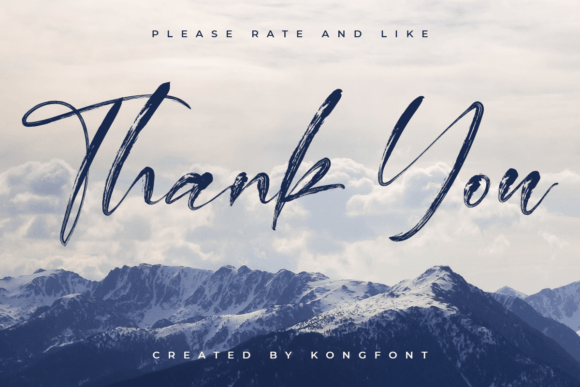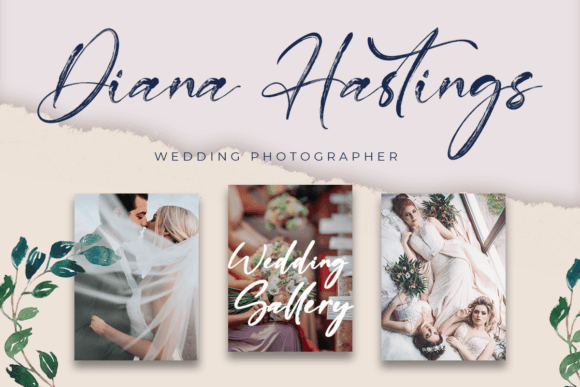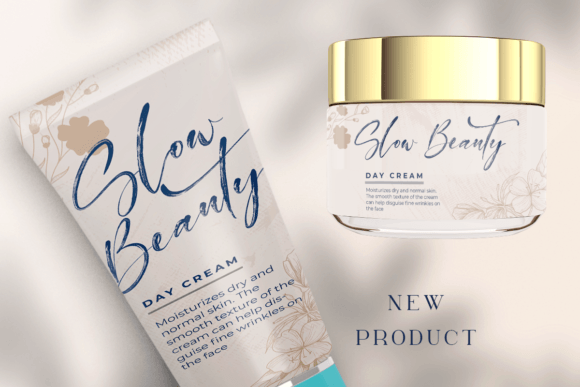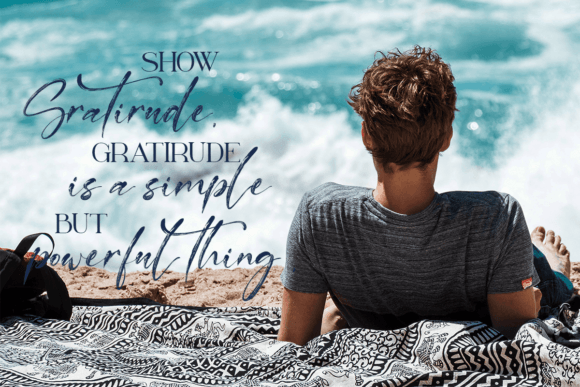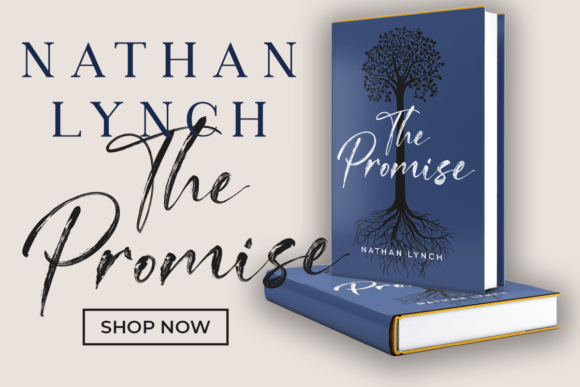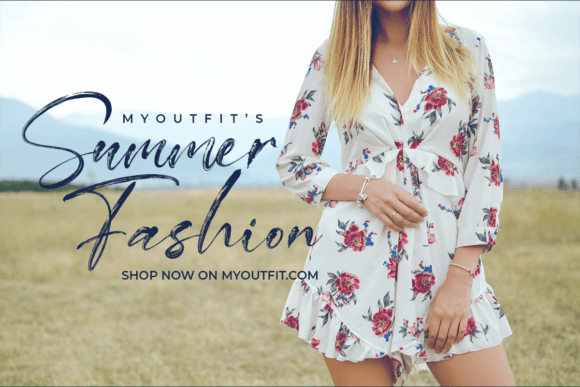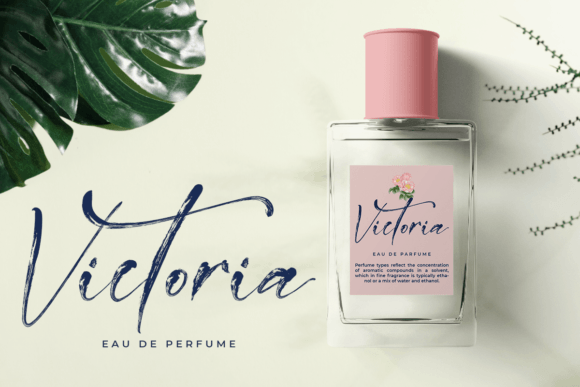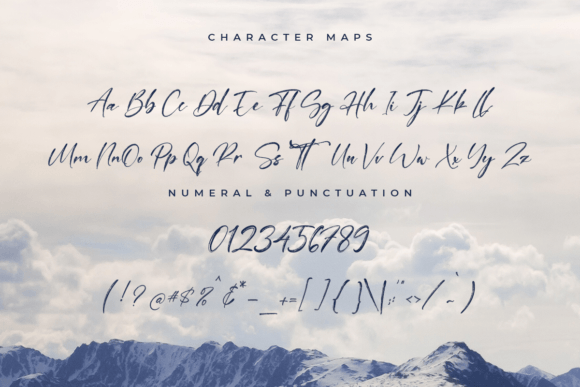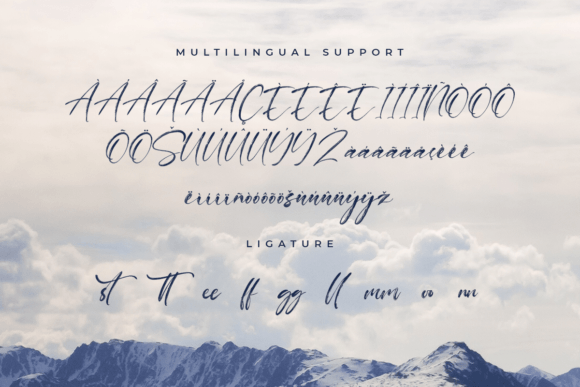
Geoffrey Font
About Geoffrey Font
“Geoffrey Brush Font” is a distinctive and beautiful typeface that stands out with its unique brush-style letterforms. The soft and lively feel of this brush font adds a tempting quality, making it an excellent choice for various design projects. With its elegant look, Geoffrey Brush Font has the potential to enhance the visual appeal of your designs and make them look fantastic.
The brush-style letterforms of Geoffrey Brush Font contribute to its uniqueness and versatility. The soft strokes and lively character give it a dynamic and organic appearance, making it suitable for a range of design contexts. Whether you’re working on branding, posters, invitations, or other creative projects, Geoffrey Brush Font has the capacity to bring a touch of artistic flair.
The elegant look of Geoffrey Brush Font is a key feature that elevates its visual impact. The combination of brush strokes with an elegant aesthetic creates a harmonious balance, allowing this font to be applied in both sophisticated and more casual design scenarios. It adds a refined touch that can make your designs stand out with style.
The PUA encoding of Geoffrey Brush Font is a practical feature that enhances user accessibility. With this encoding, designers can easily access the font’s amazing glyphs and ligatures, making it a user-friendly option for those who want to explore and experiment with the diverse range of characters and flourishes that the font offers.
In summary, Geoffrey Brush Font is not only unique but also beautiful, making it a valuable asset for designers seeking a brush-style font with a soft and lively feel. Whether you’re working on elegant branding or vibrant posters, let Geoffrey Brush Font be the creative element that adds flair and sophistication to your design projects.